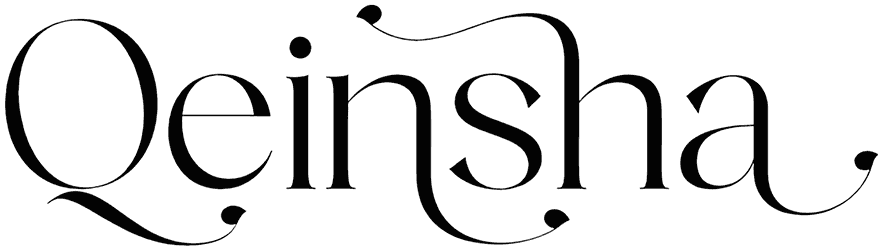
Qeinsha Font
Do you also feel calm looking at the divine characters of Qeinsha font, or are we under sedatives without even knowing?! It’s just so peaceful, both experiencing the gentle flow of it and the fact that you’ll know you have this beautiful masterpiece in your toolbox.
The swashes get thinner at the point of fading away in this sexy font, and that’s when the end of the letter is marked with a round element. That’s more than enough elegance that your spa logos and comic branding need.